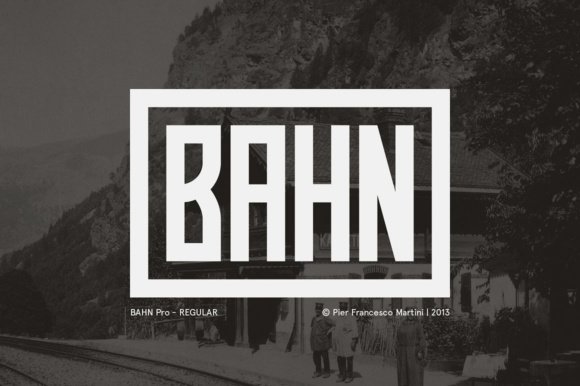
Timeless Typography: Discover the Bahn Pro Font You know that feeling when you stumble upon a vintage sign in a dusty old antique shop, and suddenly you’re transported back to a bygone era? For designers, that feeling is what we strive for in our work – a connection to the past that feels timeless and…